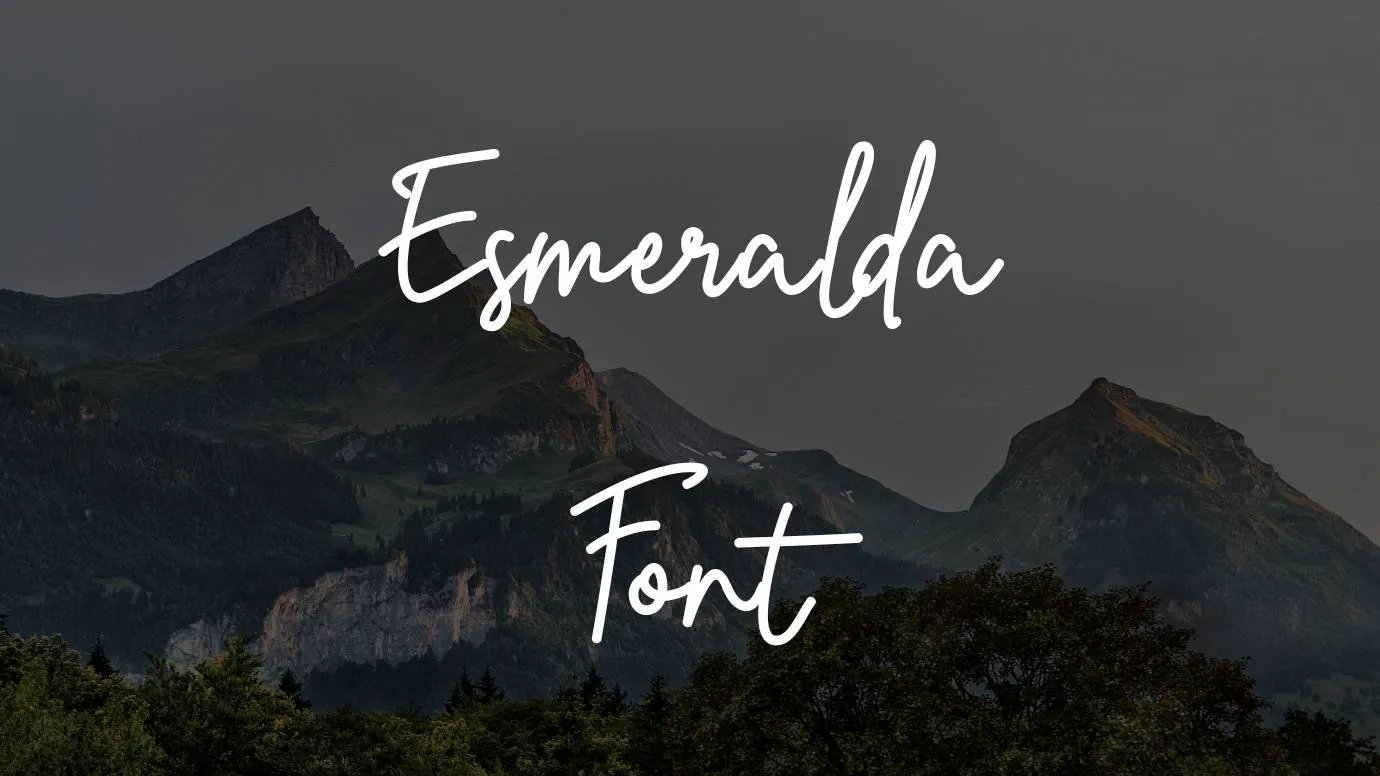
Esmeralda Font Family
Esmeralda Font Family comes in a script font family. Ahargun C Design is the first and main designer of this typeface. This texture has curved shape corners and stylish swashes.
Esmeralda Font